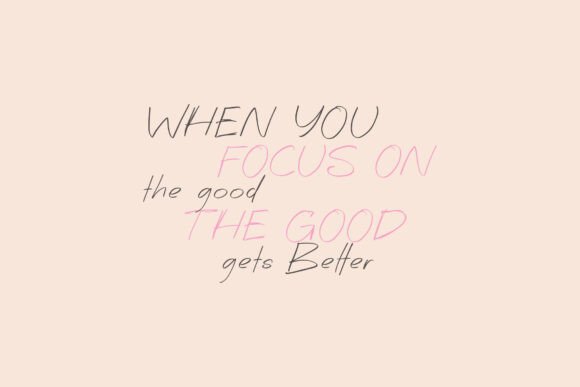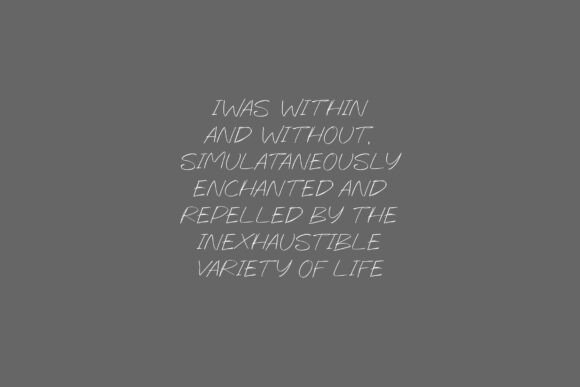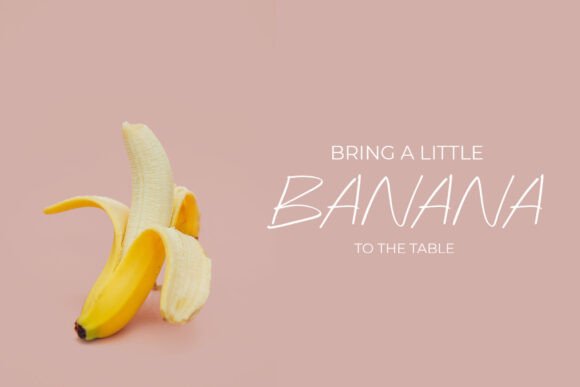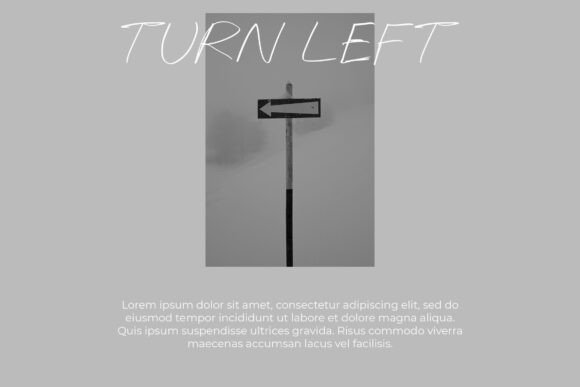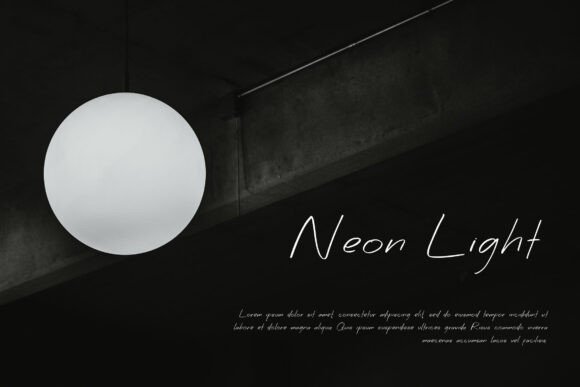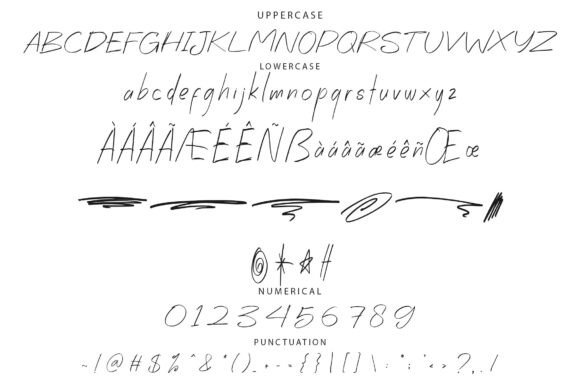
Introduction to Jackquin Font
Remember that moment when you finally nailed a design concept, and everything fell into place? The rush of excitement, the sense of accomplishment, and the knowledge that you’ve created something truly special. For designers, this feeling is what drives us to keep pushing the boundaries of creativity. And what better way to enhance your designs than with the perfect font?
Enter the Jackquin Font, a dynamic handwriting font that brings a touch of raw, artistic flair to any project. Its unique character shapes and rough handbrush style make it an ideal design resource for adding personality and flair to branding, packaging, posters, and more. Whether you’re working on a high-quality creative project or simply need a font to give your designs a bit of edge, Jackquin Font is a valuable addition to your design arsenal.
With its versatility and high-quality design, the Jackquin Font is a free download that’s sure to become a favorite among designers. From transparent backgrounds to bold, eye-catching typography, this font is the perfect way to add a bit of handcrafted charm to your work.
Key Features of Jackquin Font
- High-quality, professional font perfect for creative projects requiring a unique touch.
- Comes with a transparent background, ideal for use on a variety of design resources.
- Features a unique, elegant design that sets it apart from more generic fonts.
- Designed at 300 DPI resolution for crisp, clear text reproduction.
- Perfect for use in logos, typography, and other design elements where a touch of sophistication is required.
Honest Review: Jackquin Font
I recently had the chance to work with the Jackquin Font, and I must say it’s been a delightful experience. This font is perfect for those high-quality, creative projects that require a touch of elegance and sophistication.
What works well is the transparent background, making it easy to layer and design. The font itself is clean, modern, and versatile, suitable for a wide range of design applications. The best part? It’s a free download, making it an excellent resource for designers on a budget.
- ✨ High-quality design
- ✨ Transparent background
- ✨ Free download
- ✨ Suitable for various design applications
However, I do have to mention a few limitations. The font is not ideal for projects that require a bold or distressed look. Additionally, the font file size can be quite large, which may be a concern for those with slower internet connections.
Overall, I’m thoroughly impressed with the Jackquin Font. It’s a fantastic design resource that I would highly recommend for any creative project. With its high-quality design and transparent background, it’s sure to become a staple in your design arsenal.
Tips for Getting the Most Out of Jackquin Font
For the best results, use the Jackquin Font in combination with other design elements, such as images and shapes. You can also experiment with different font sizes and colors to create unique and eye-catching designs.
The Jackquin Font is ideal for use in a variety of creative projects, including graphic design, digital art, and typography. It’s also a great choice for designers who want a high-quality, free download font for their projects.